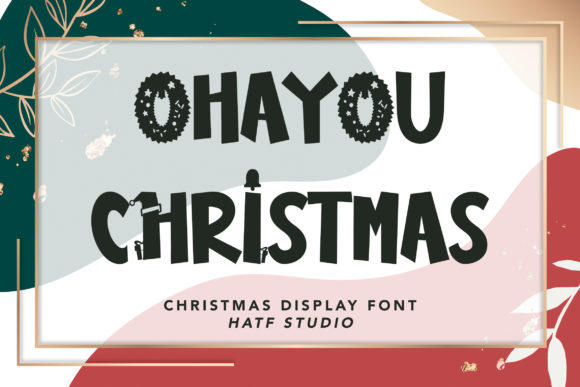
Step into a world of festive cheer with Ohayou Christmas Font, a playful and jubilant addition to your design arsenal. Adorned with decorative characters and a merry spirit, this display font exudes holiday charm like no other.
Dive into a realm of creativity, where Ohayou Christmas serves as your trusty companion for a multitude of projects. Elevate your branding efforts with a logo that radiates warmth and cheer, or craft wedding designs that capture the essence of love and festivity. Make your media posts and advertisements sparkle with delight, and create product packaging that enchants customers with its jolly spirit. Unleash your imagination and design products that exude holiday flair, while labels and photography take on a whole new life.
Transport yourself to a winter wonderland with Ohayou Christmas, where watermarks, invitations, and stationery become expressions of pure joy. Let the merriments of the season flow through your creative veins as you craft designs that resonate with the spirit of Christmas. Experience the magic of Ohayou Christmas today, and let the festive vibes dance across your designs.